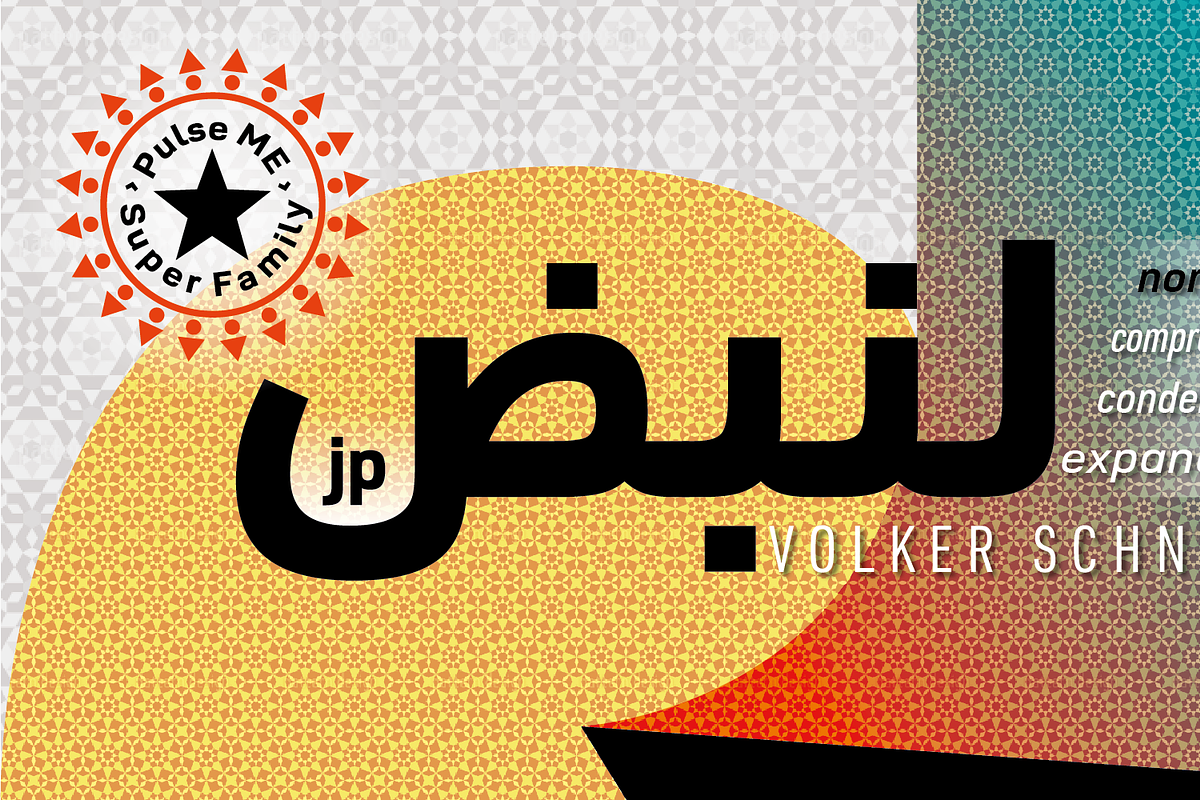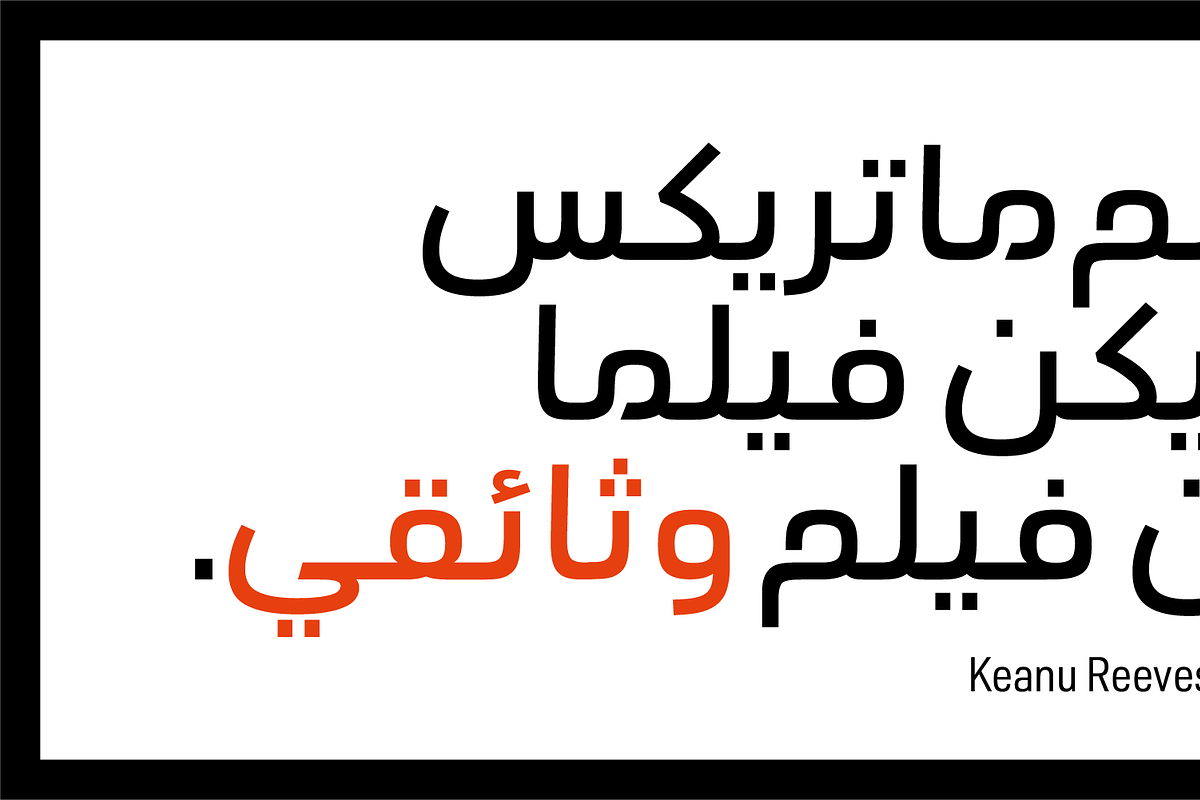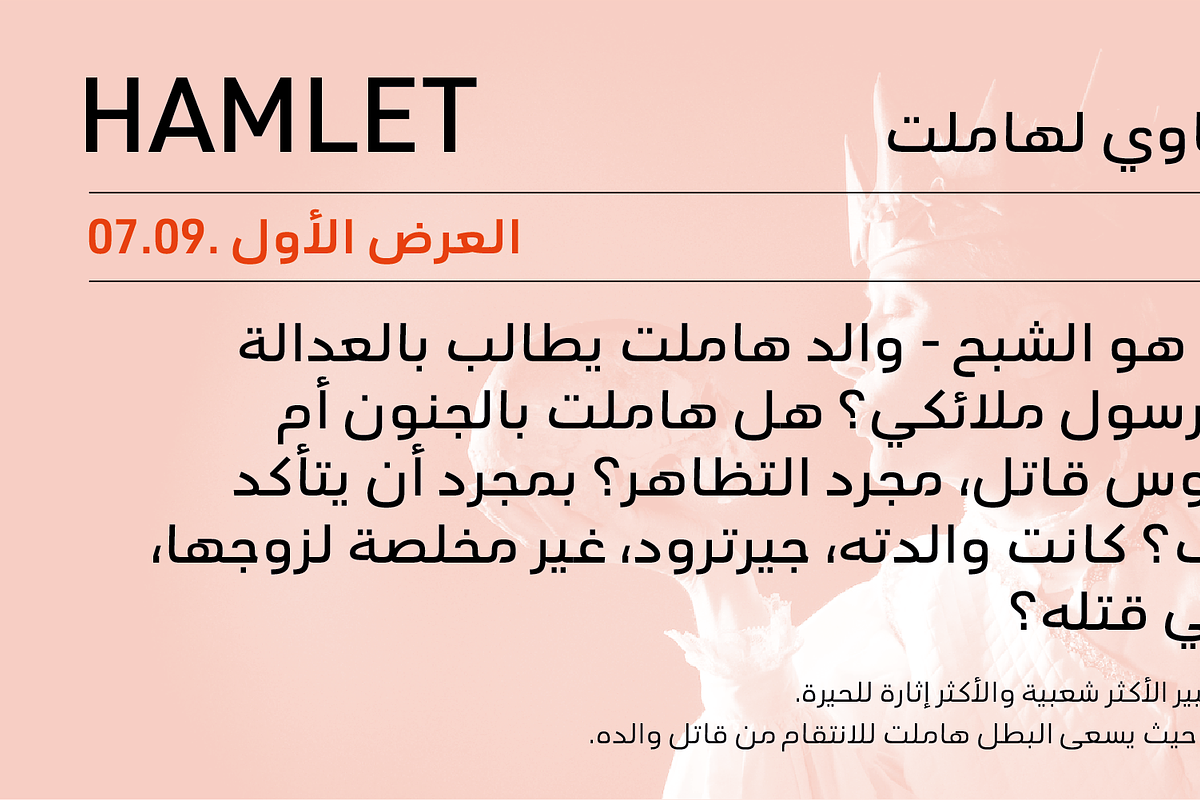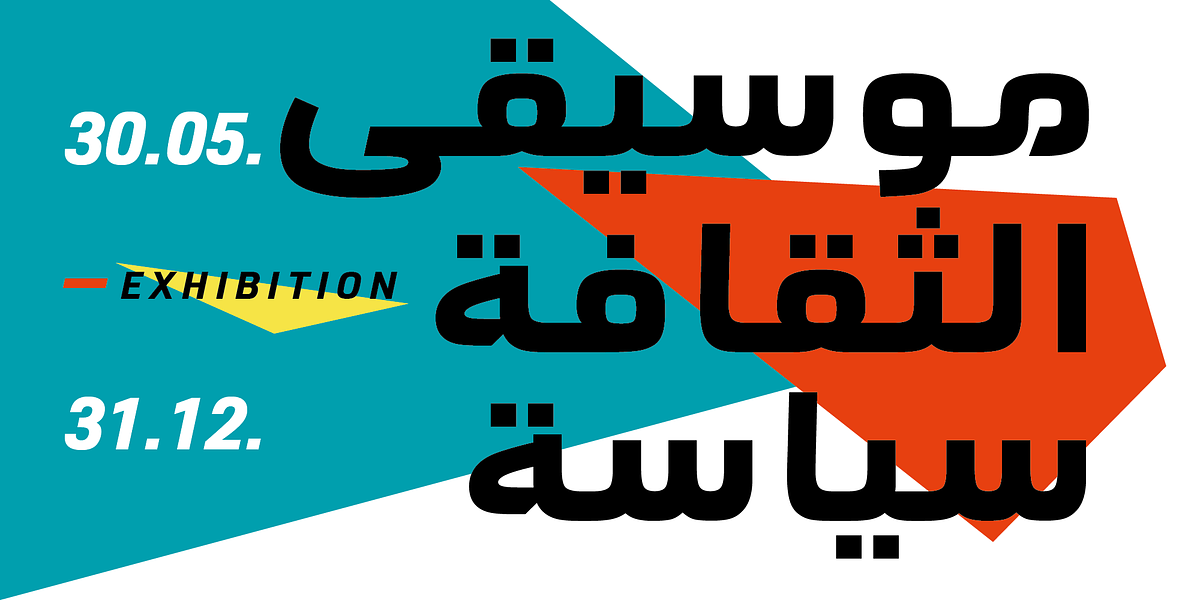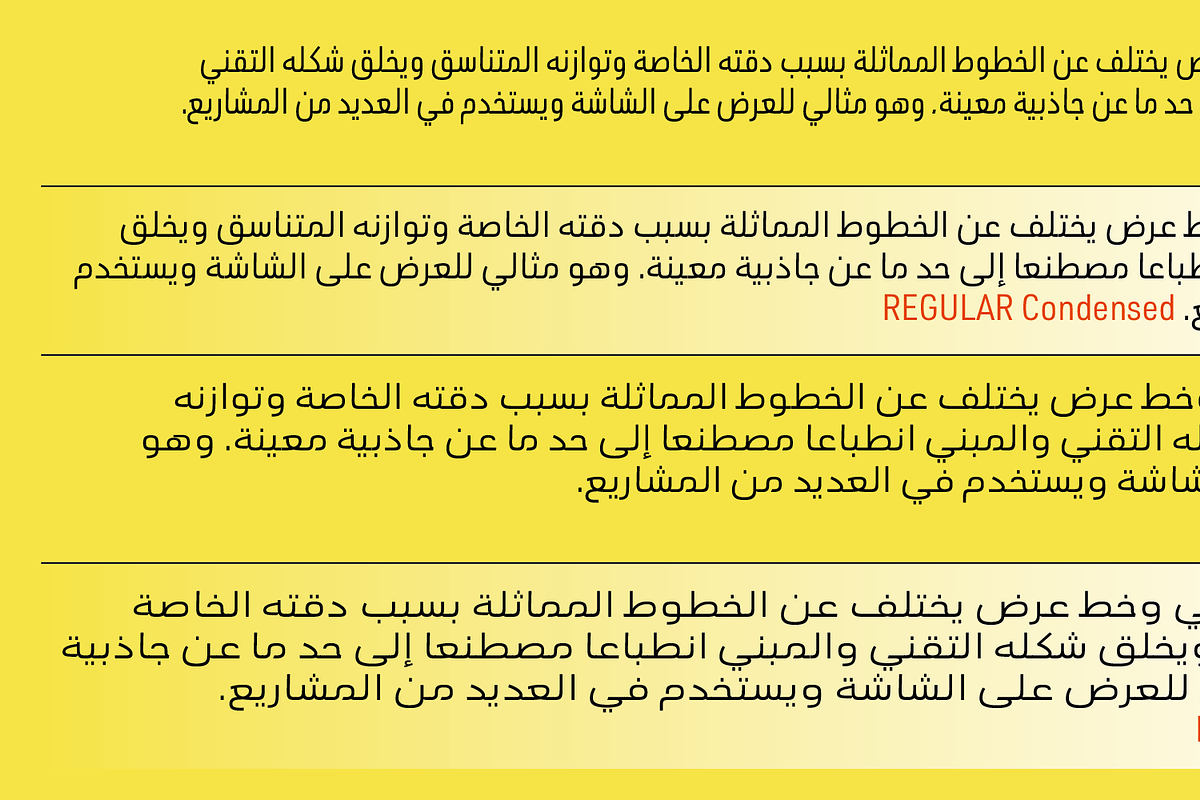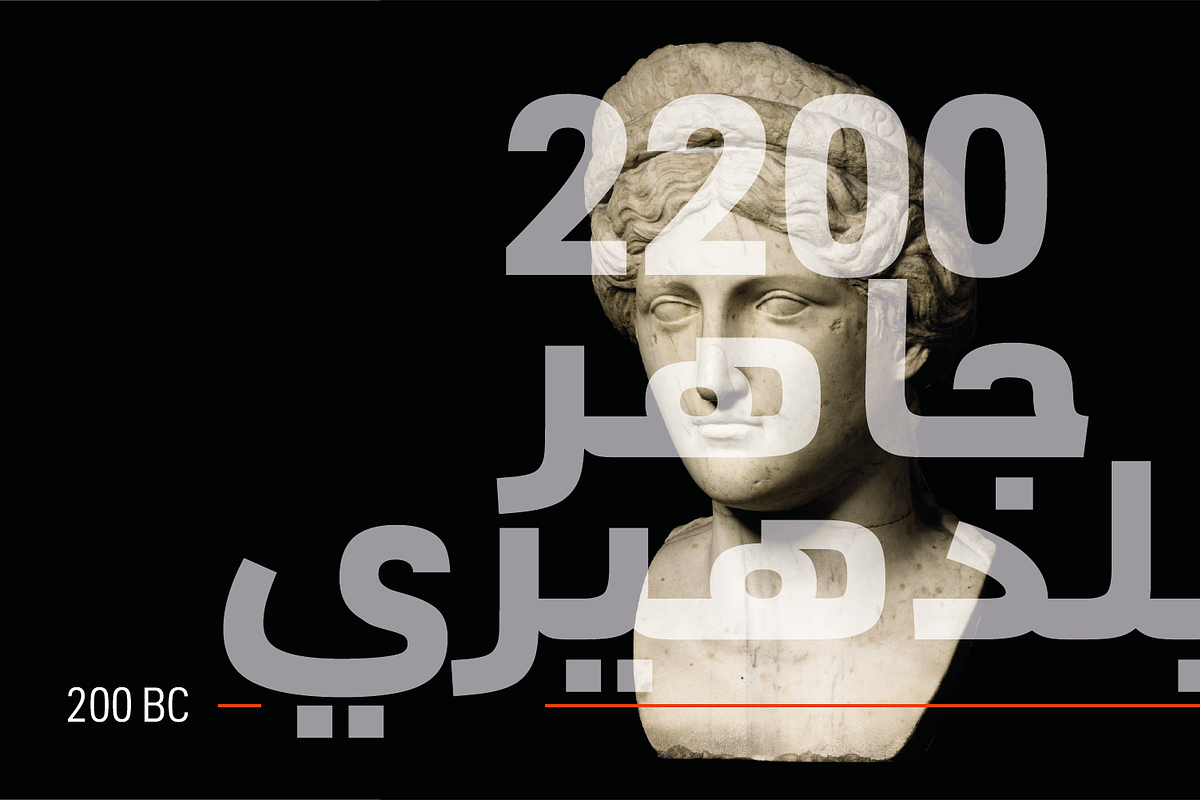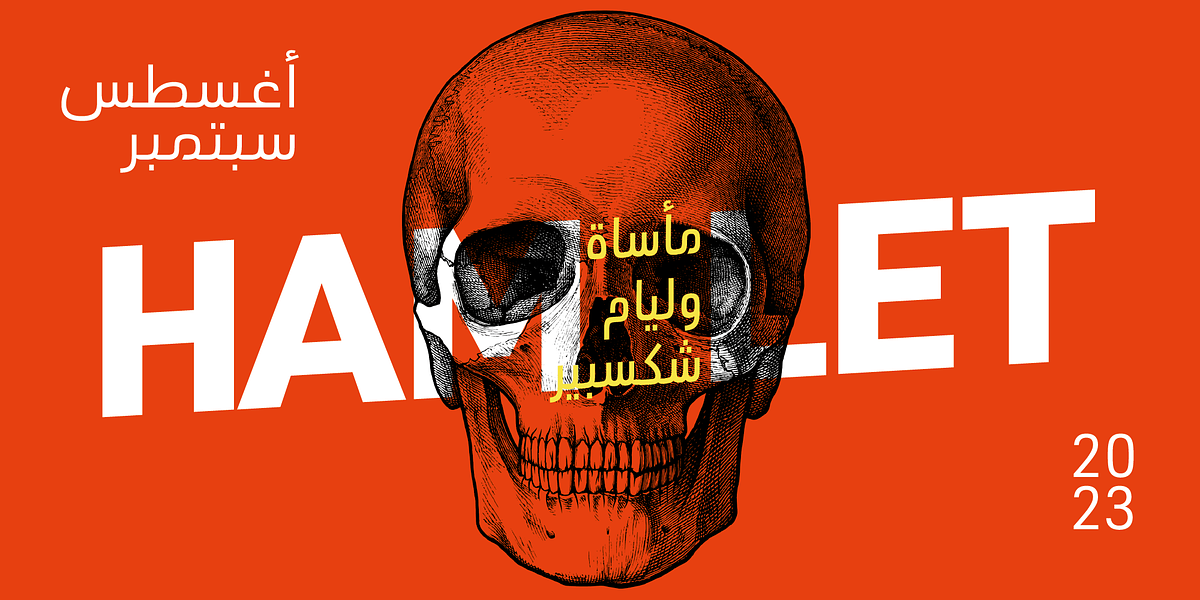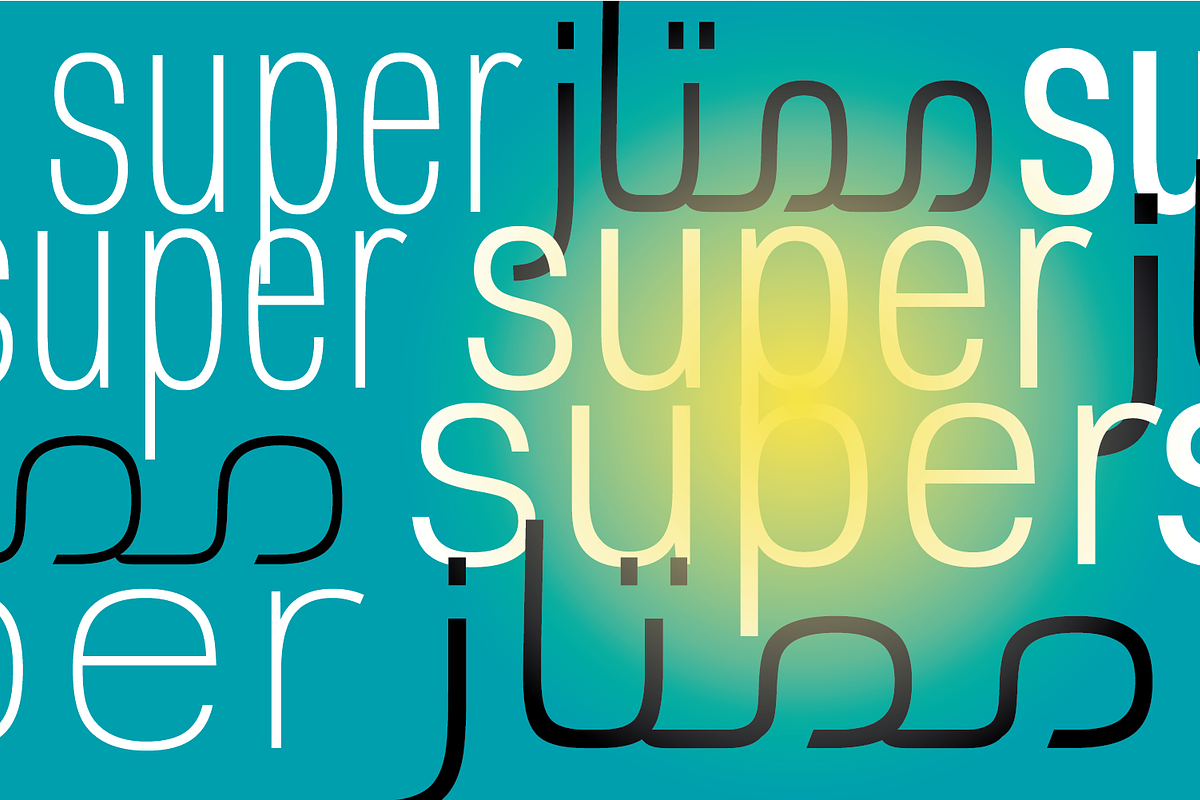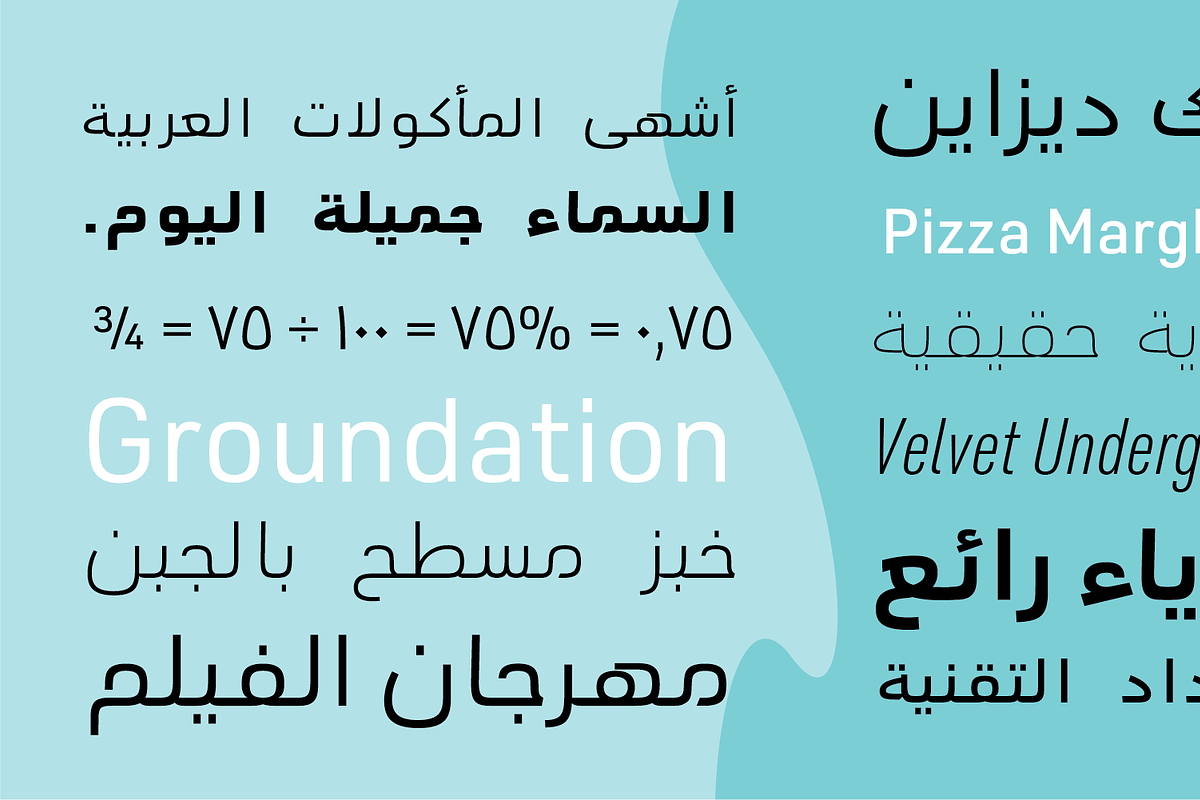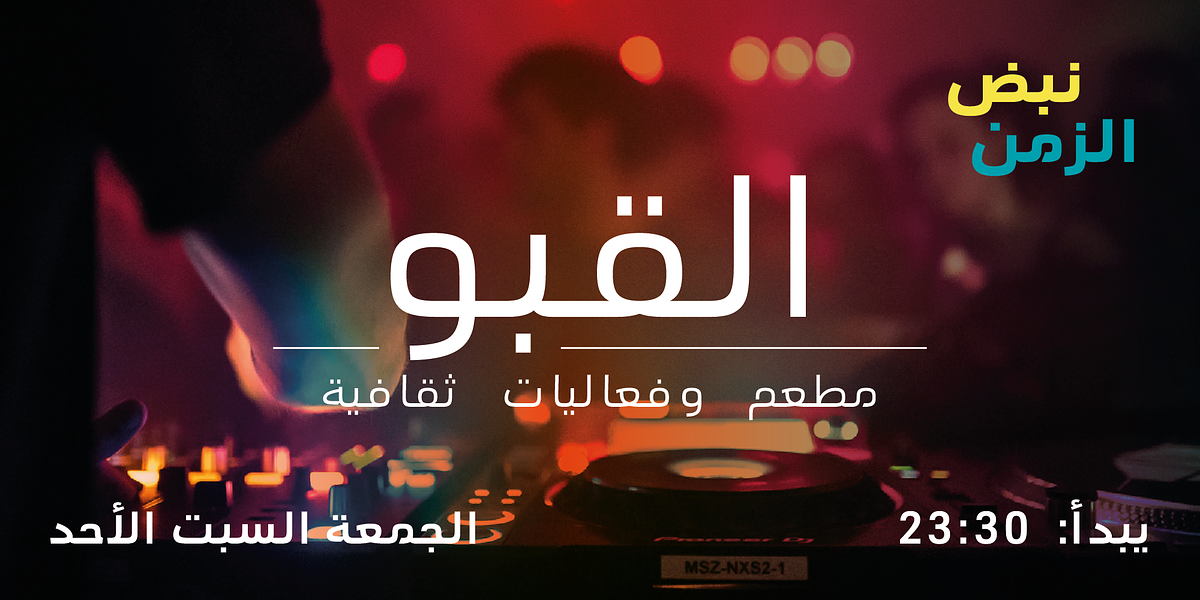
Pulse JP ME
Pulse JP ME is a neo-grotesque sans serif font characterized by its sharp, precise design and harmonious balance. It's designed for versatility, offering a range of weights and widths suitable for both display and paragraph text. The font was developed with meticulous attention to detail, ensuring consistency across all variants. Notably, Pulse JP ME includes an extensive character set supporting Latin, Arabic, and Hebrew languages. A variable font version allows for further typographic adjustments.